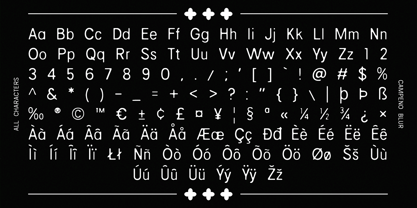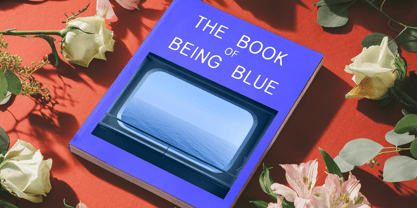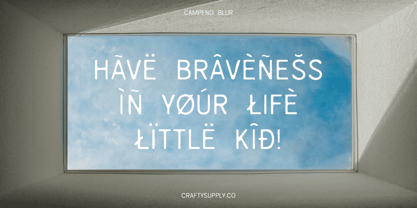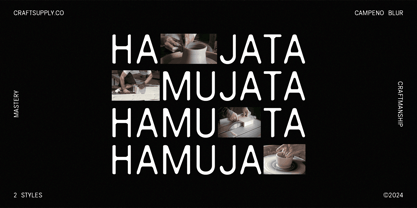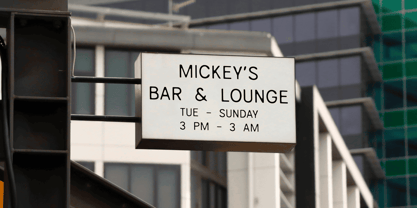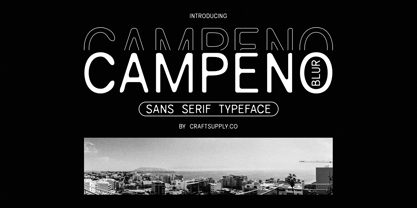
Campeno Blur
by Craft Supply Co
The Campeno Blur Font Family was designed by Trio Nazzar Saputra, Wahyu Hadi Yuana and published by Craft Supply Co. Campeno Blur contains 2 styles and family package options.
Campeno Blur: Where Geometric Precision Meets Modern Blur
Introduction
Campeno Blur is a sans serif font that seamlessly combines geometric shapes with a contemporary blur effect. This unique font offers a futuristic and experimental look, making it perfect for designs that strive to be innovative and modern.
Geometric Design with a Modern Twist
The blur effect in Campeno Blur adds a modern touch to its geometric design elements, creating a font that is both precise and contemporary. This blend of styles gives Campeno Blur a unique and appealing appearance, making it ideal for projects that require a futuristic and experimental aesthetic.
Ideal for Futuristic Designs
Campeno Blur is perfect for designs that aim to be modern and avant-garde. Whether you’re working on branding, technology product designs, or web designs, this font can help you achieve a look that is both innovative and contemporary. Its blend of geometric precision and modern blur effects makes it a versatile choice for a variety of design projects.
Enhance Your Designs with Campeno Blur
With its unique blend of geometric shapes and modern blur effects, Campeno Blur can add a touch of sophistication to any design. Whether you’re aiming for a futuristic feel or an experimental look, this font can help you create designs that are both cutting-edge and timeless.